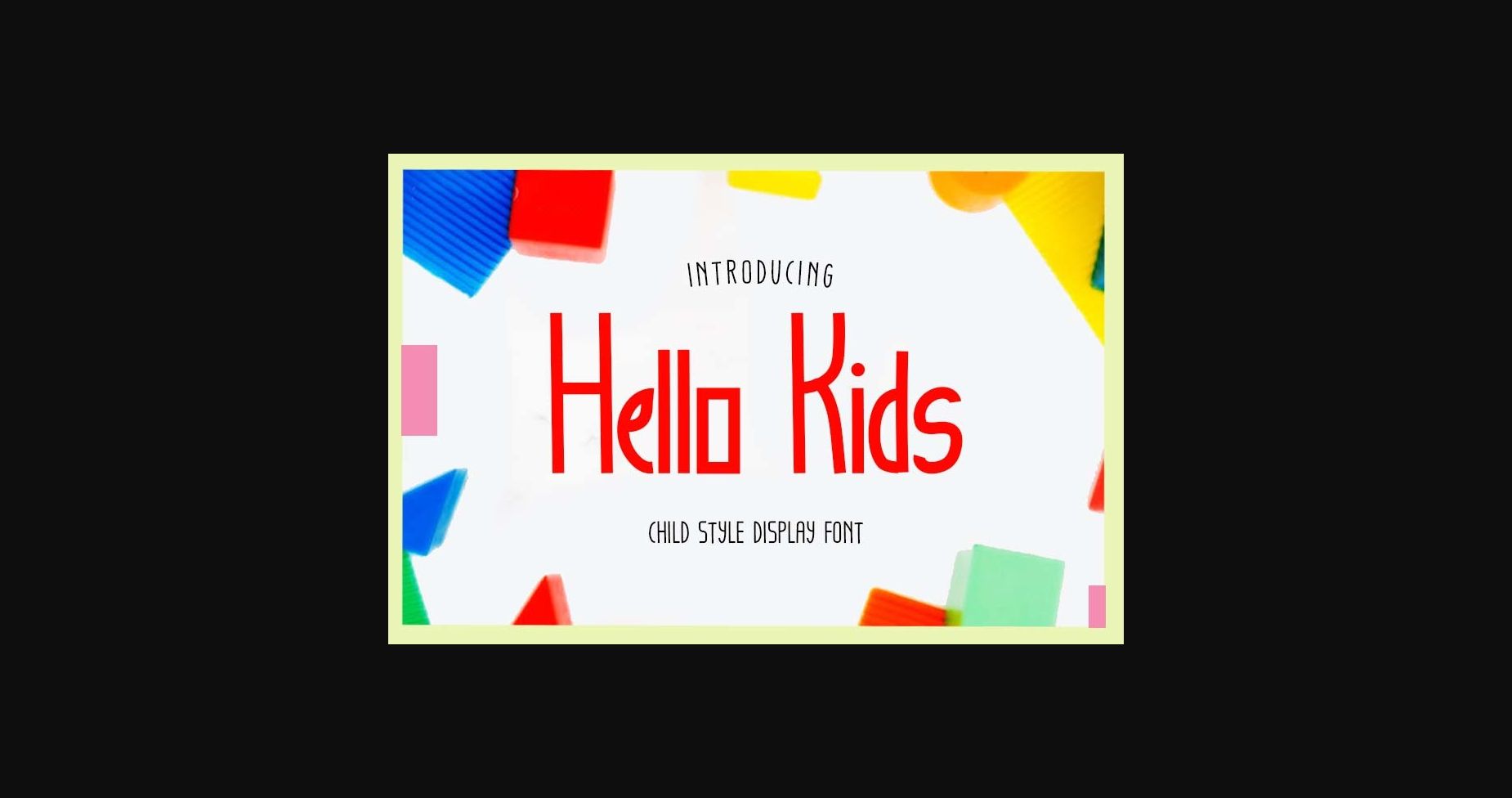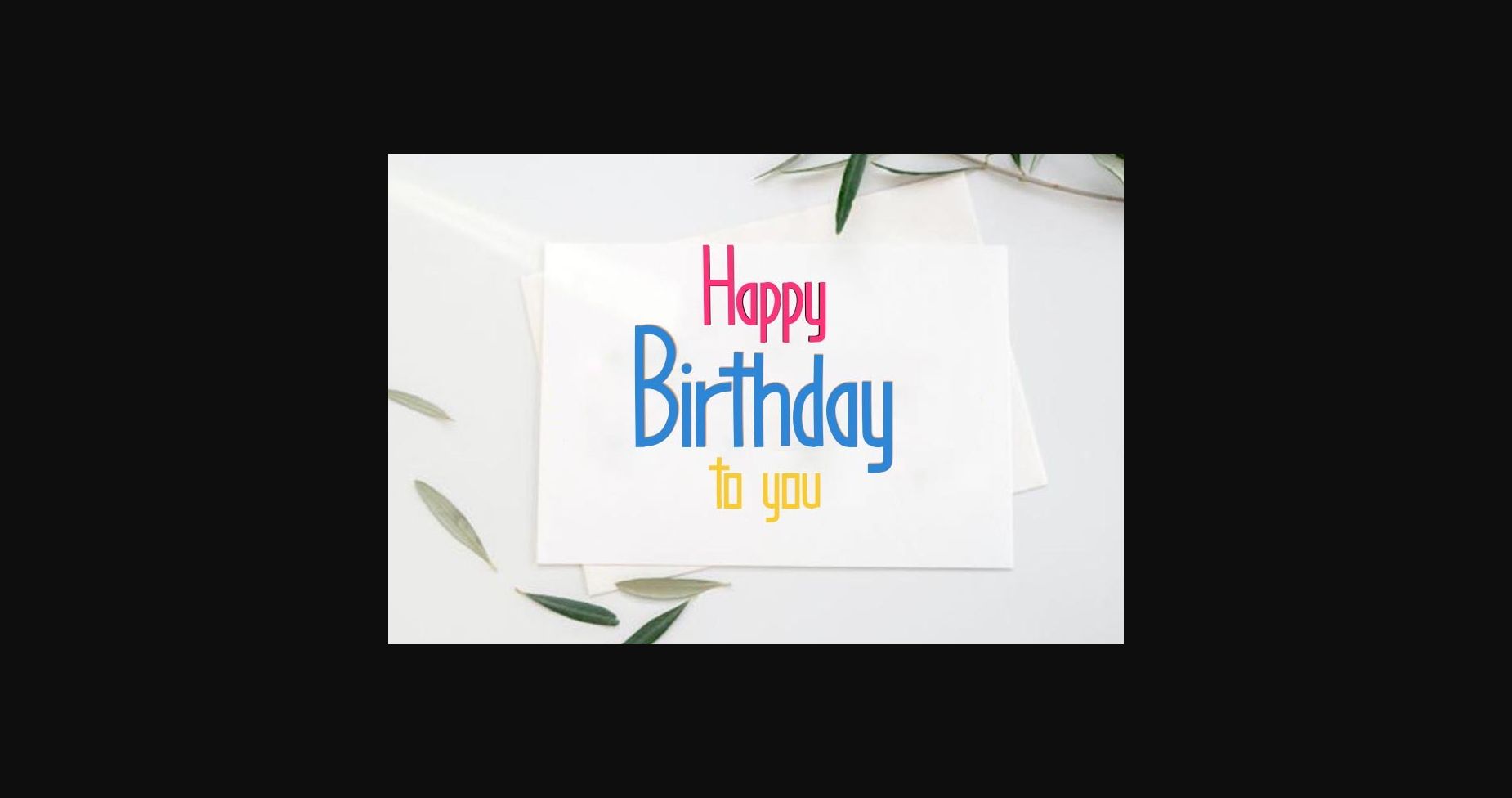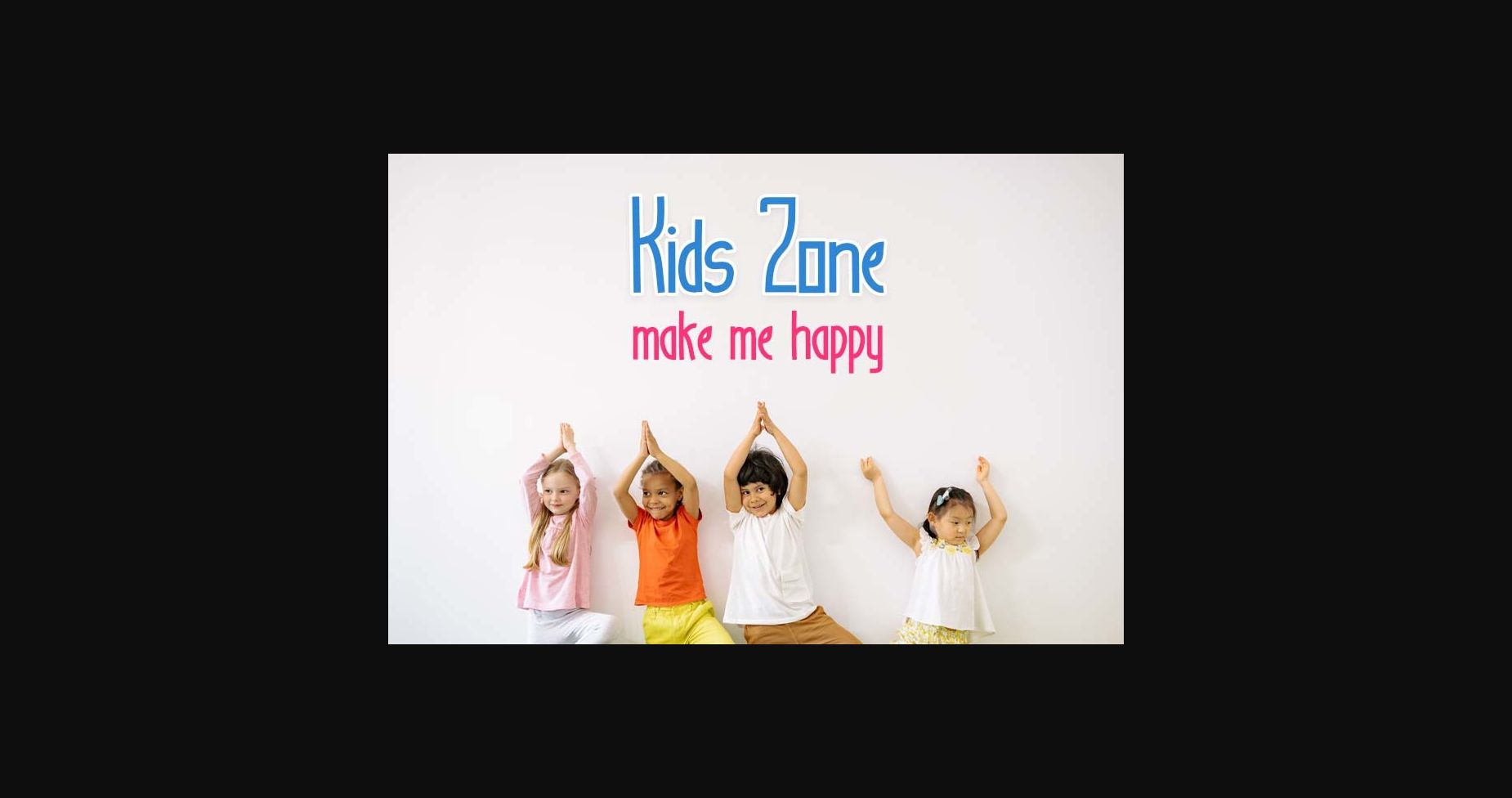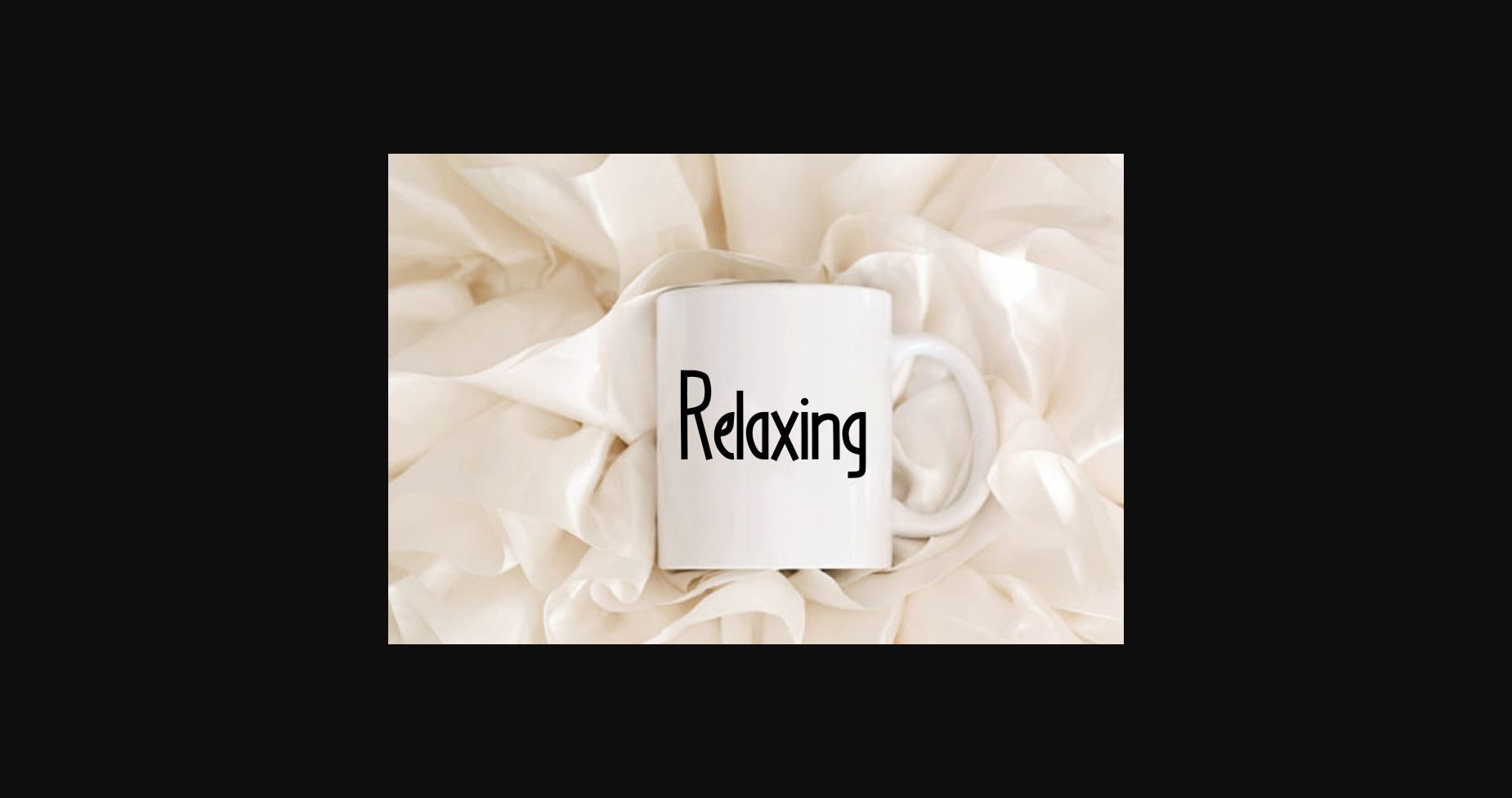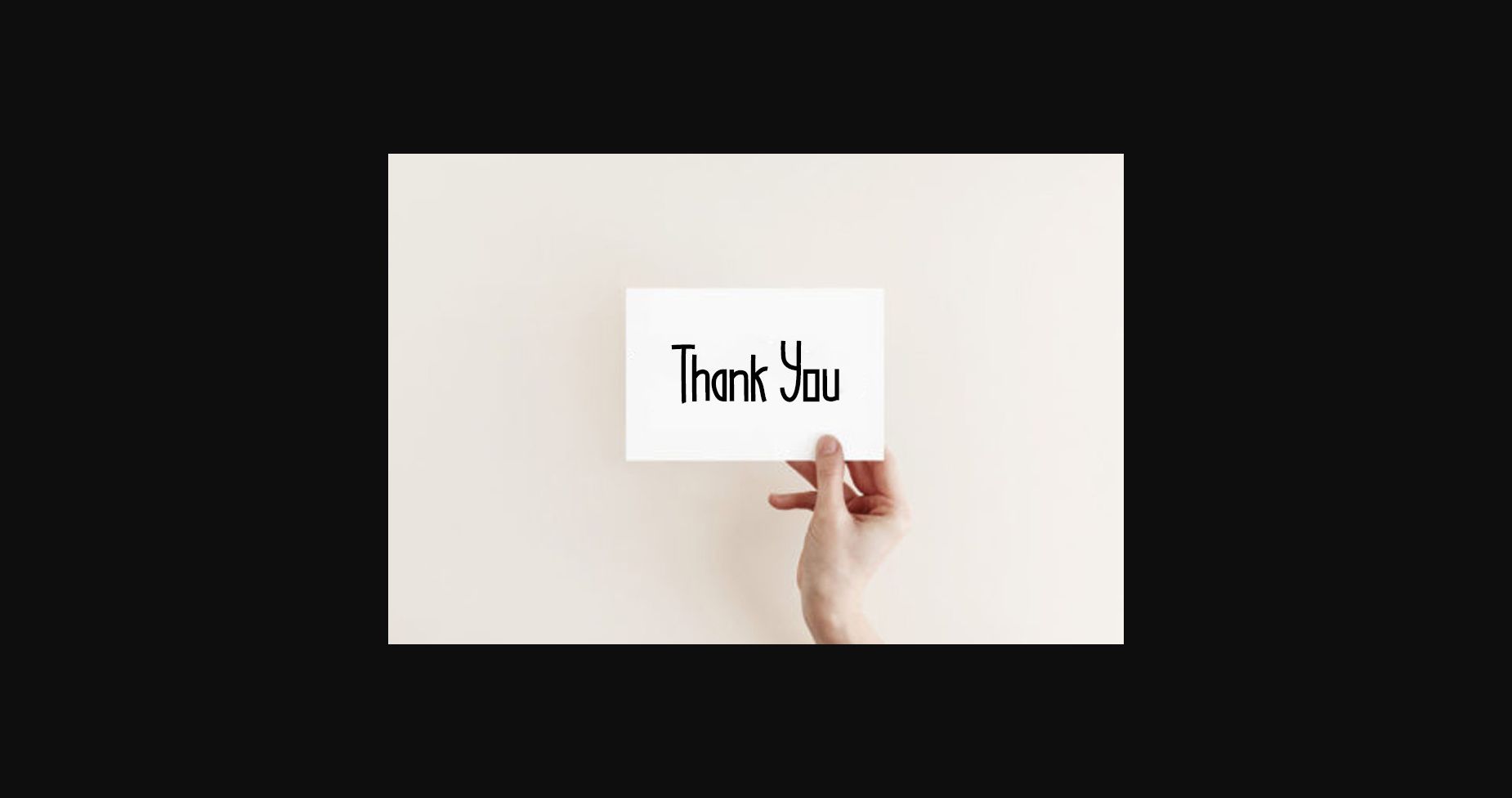
HomeSans Serif FontsHello Kids Font Sans Serif Fonts Hello Kids Font FacebookXPinterestWhatsApp 1 of 7 ... Hello Kids Font Poster 2... Hello Kids Font Poster 3... Hello Kids Font Poster 4... Hello Kids Font Poster 5... Hello Kids Font Poster 6... Hello Kids Font Poster 7... About Hello Kids Font Hello Kids is a fun, bold, and cheerful sans-serif font. Its sleek characters and lighthearted nature make this typeface a must-have in your fonts library! Use it to express your creative and playful design ideas! DOWNLOAD NOW People also explored Romantic Couple Font Itchy Font Forest Marble Bella Canvas 3005 Mockup Canary Font Sophie Font Rookie Coach Balming Font Rockwish Font The Samthown Font 298 0 TagsHello Kids Font Previous articleEvening Inspiration FontNext articleGlamore Font Font LEAVE A REPLY Cancel reply Comment: Please enter your comment! Name:* Please enter your name here Email:* You have entered an incorrect email address! Please enter your email address here Website: Save my name, email, and website in this browser for the next time I comment. Personal Use Free Harshita Personal Use Free Read more about this font Clarisa Script Personal Use Free Read more about this font Lover Loves Personal Use Free Read more about this font Vilsuve Personal Use Free Read more about this font BLOG Fonts That Capture the Spirit of New York City New York City is more than just a place—it’s an experience, a rhythm, a visual language... Transform Your Website: Elevate Your Typography with 7 Best Web Font Generators 5 Fonts That Will Dominate Design Trends in 2026 Best Fonts for YouTube Videos: Make Your Thumbnails Stand Out